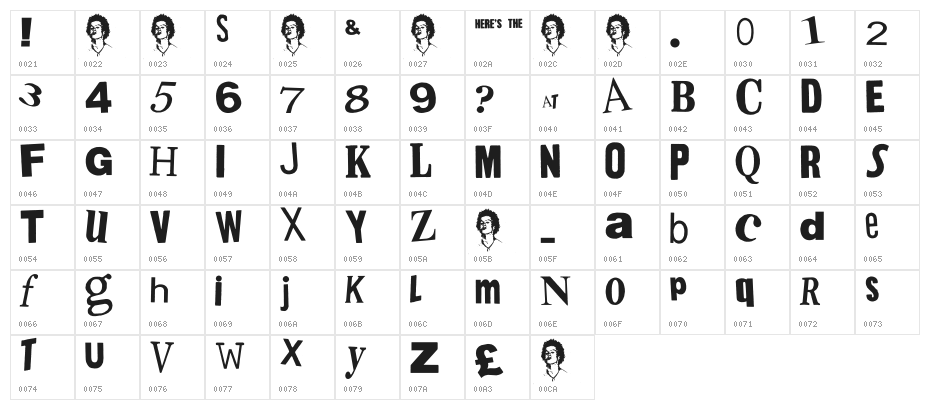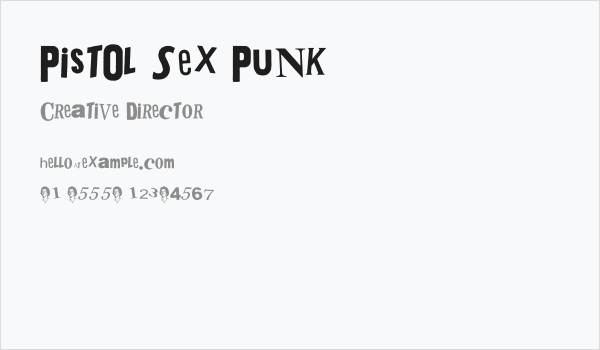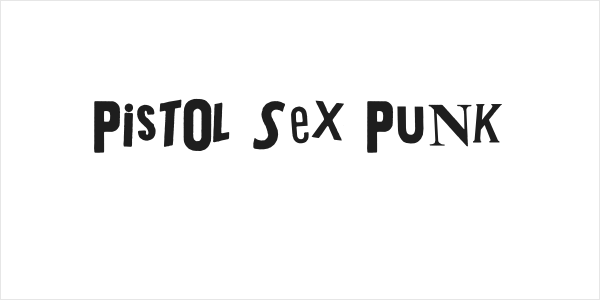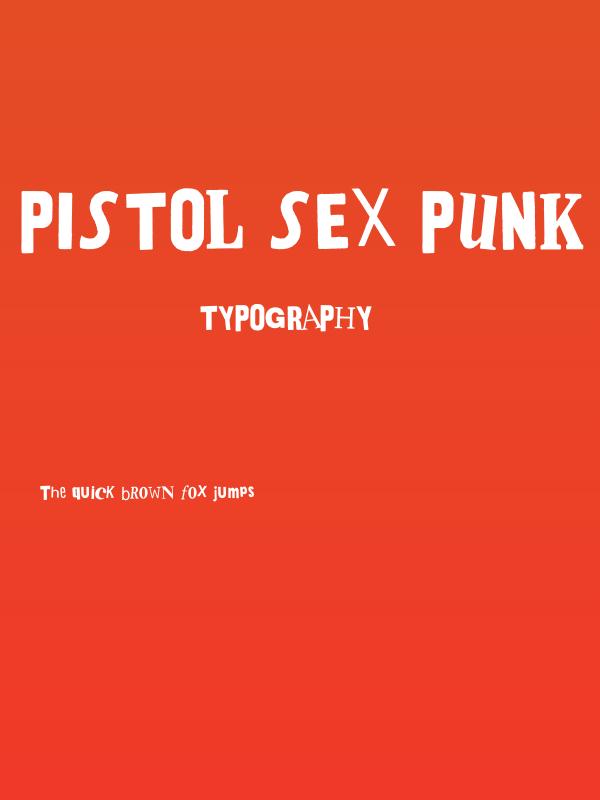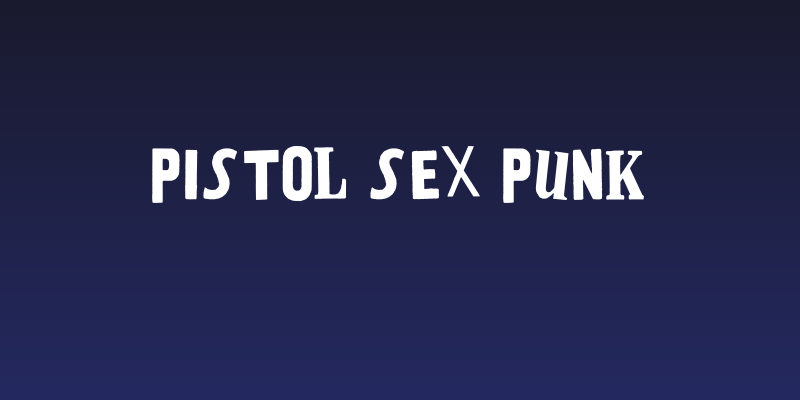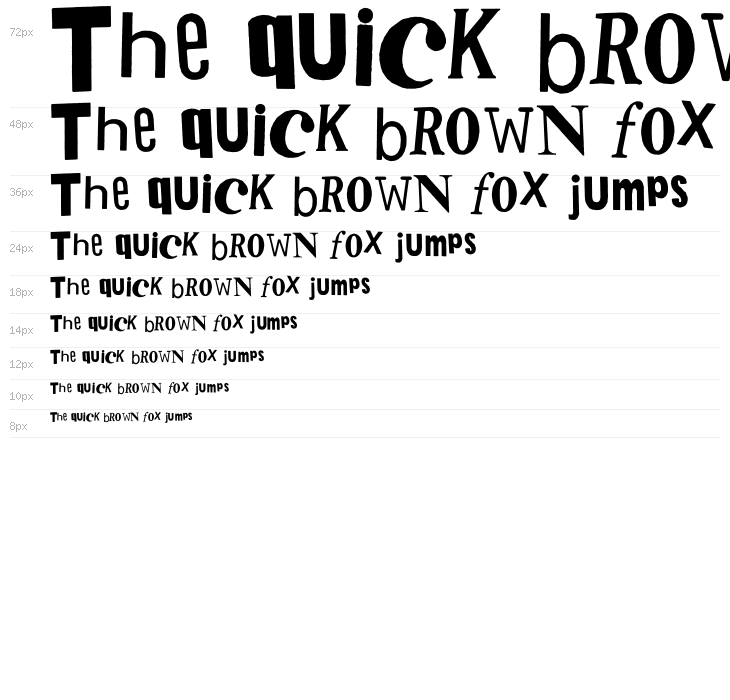
PistOl Sex Punk Font
PistOl Sex Punk Description
This font is a bold and eclectic display typeface that combines elements of punk and retro styles. The uppercase letters exhibit a mix of thick and thin strokes, with some characters featuring exaggerated serifs and others having a more block-like appearance. The lowercase letters continue this theme, with playful variations in height and width, giving the font a dynamic and rebellious feel. The numbers are bold and slightly irregular, adding to the overall edgy aesthetic. Special characters are included, maintaining the same bold and distinctive style. This font is perfect for projects that require a strong, unconventional look.
| Overall Style | Punk, Retro, Eclectic |
| Proposed Projects | Ideal for music posters, album covers, edgy branding, and creative editorial designs. |